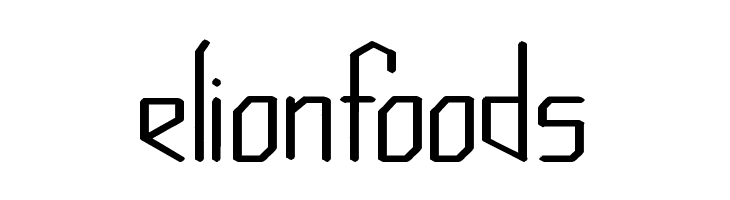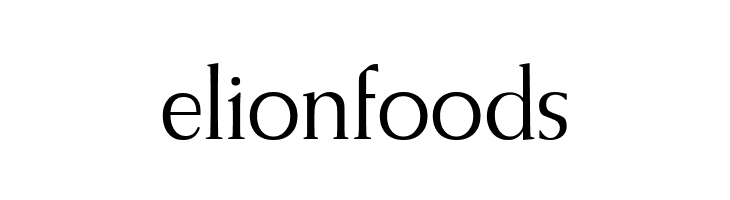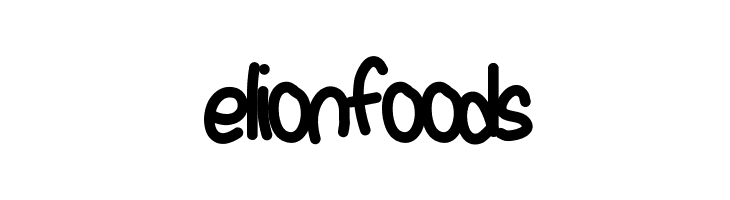
A geometric, angular font with sharp edges and a modern aesthetic.
A classic serif font with elegant strokes and sharp serifs, perfect for formal designs.
A playful, bold handwritten font with rounded, consistent strokes.
A clean, modern font with balanced spacing and clear characters.
A bold, futuristic font with geometric and angular letterforms.
Bold, italicized font with a modern, dynamic style.